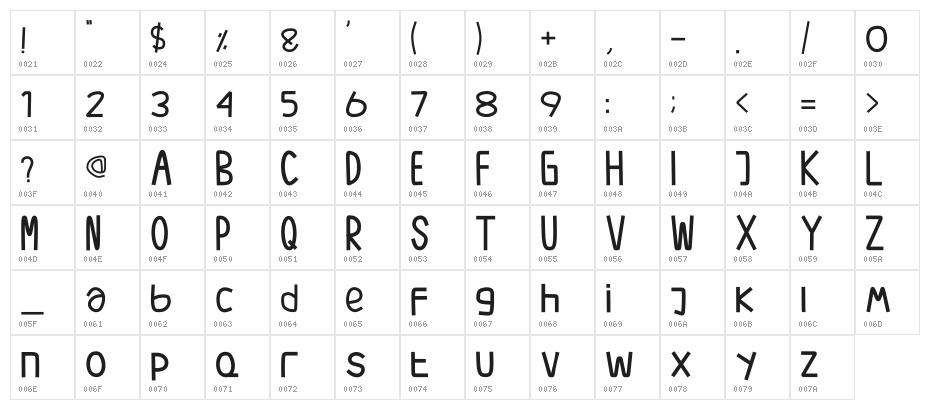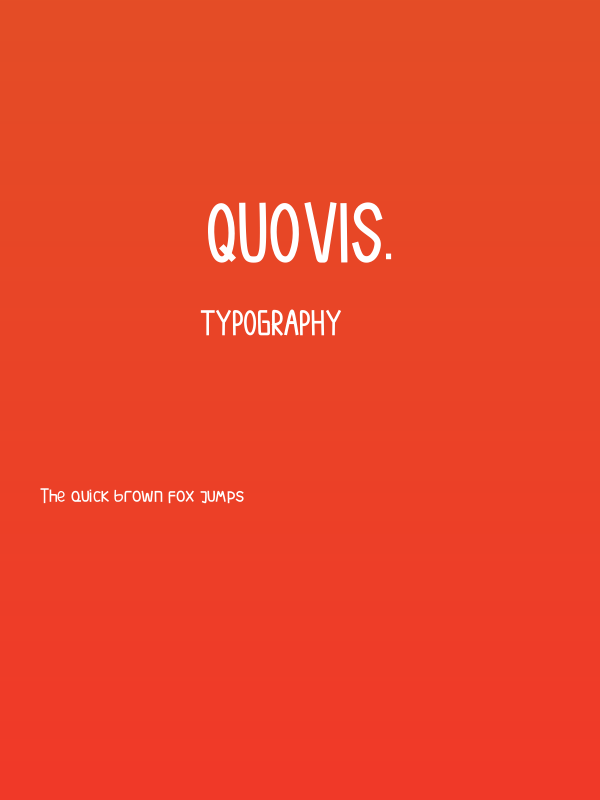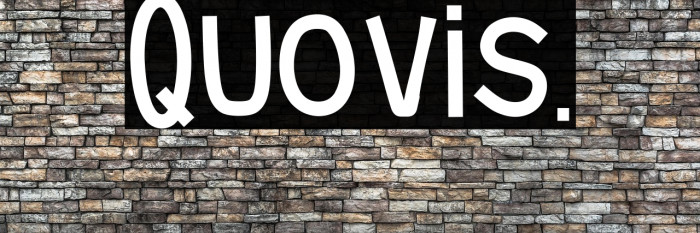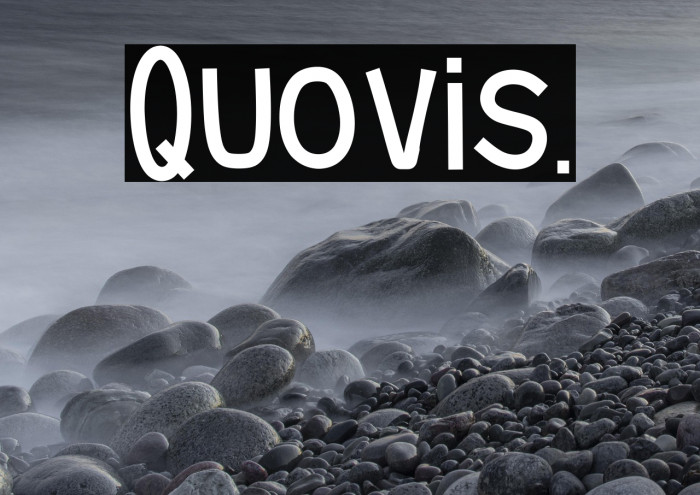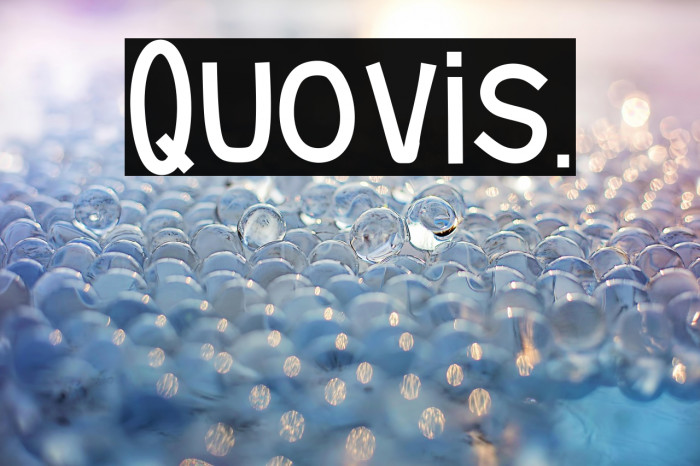
Quovis. Font
Quovis. Description
This font features a playful and quirky design with a unique blend of geometric and organic shapes. The uppercase letters are tall and narrow, with a slight curve that adds a whimsical touch. The lowercase letters maintain a similar style, with some characters having distinctive loops and curves that enhance the font's playful nature. The numbers are bold and consistent with the overall style, ensuring readability. The special characters are creatively designed, fitting seamlessly with the rest of the font. This font is ideal for projects that require a fun and engaging aesthetic.
| Proposed Projects | Ideal for children's books, playful branding, creative posters, and whimsical invitations. |